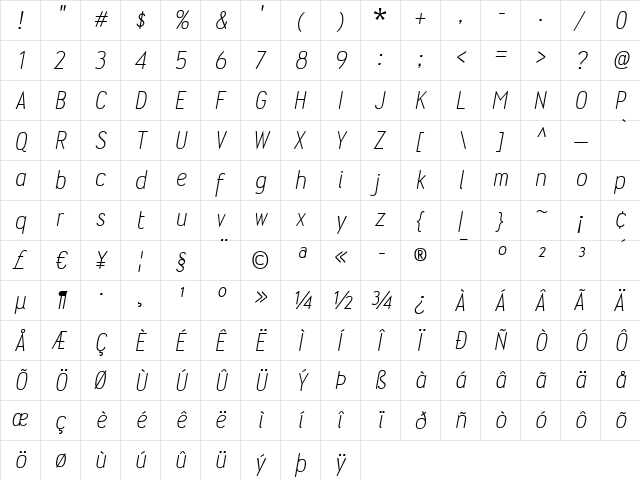
Wyvern Lt Italic
Design Context for Wyvern Lt Typeface
Wyvern Lt takes a measured approach to typography — its balanced proportions and neutral character make it a reliable workhorse for both digital and print work. The dynamic lean of this cut emphasises speed and emphasis in any layout. The delicate stroke weight brings airiness and refinement to layouts.
Pro Tip: Use Wyvern Lt for emphasis, pull quotes, and subheadings where its slanted energy can add rhythm to the layout.